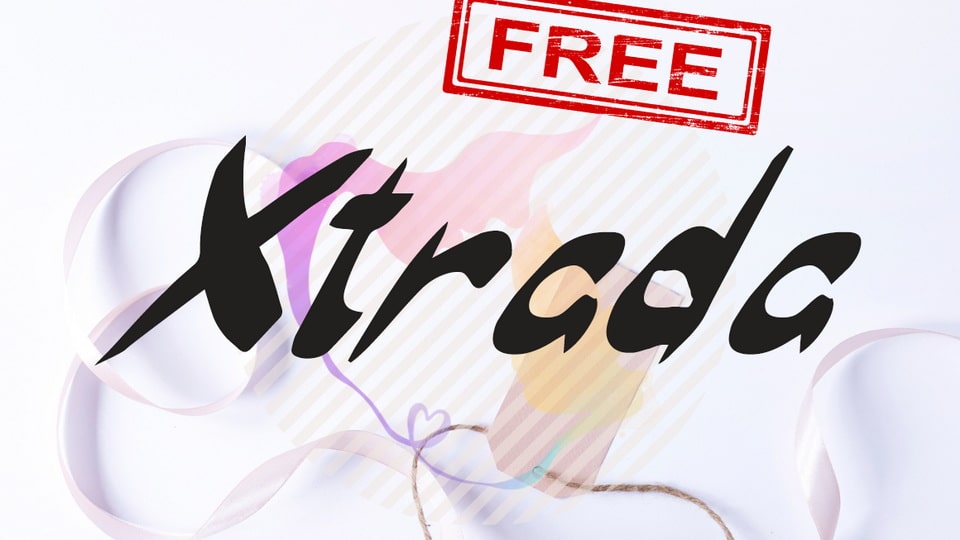
Feb 3, 2025Script & HandwrittenXtrada Font Xtrada is a bold and dynamic handwritten font. It works great on various designs that require a brushed, trendy touch. Font DetailsDesigned by: coco designWebsiteLicense: Free for commercial use Download Xtrada FontFile size: 18.01 KBCreated: February 16, 2025Updated: February 16, 2025 Download Explore similar fonts Afilora Font Revival Analog Font Moment Fruitful Font Vakantcy Font Lolita Brush Font Sound Seekers Font # Brush# Hand-drawn# Handwriting More fonts by coco designKidscrayon FontJollyHand FontPorridge FontHello Font